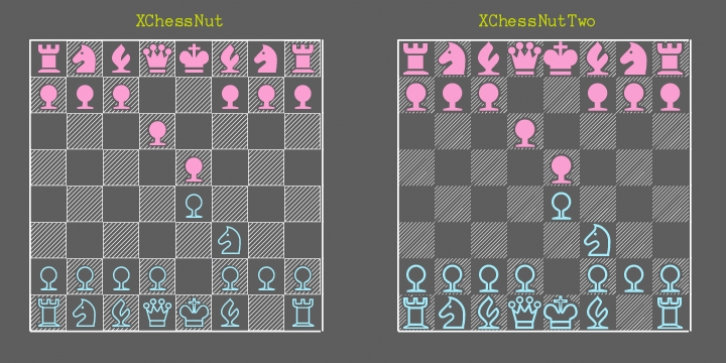
XChessNut contains two chess fonts that resemble actual chess pieces. The key layout is a bit complicated; see the key guide in the gallery for detailed information on how to position pieces correctly.